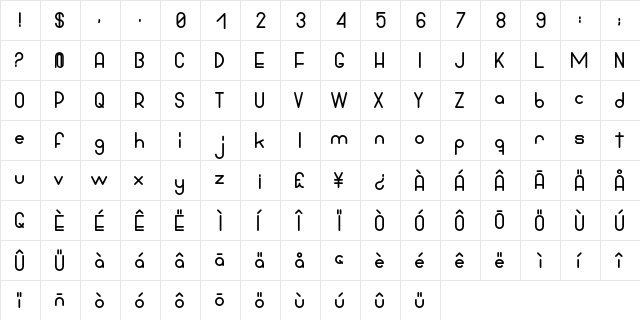
Bowhouse Black
Design Context for Bowhouse Typeface
Bowhouse takes a measured approach to typography — its balanced proportions and neutral character make it a reliable workhorse for both digital and print work.